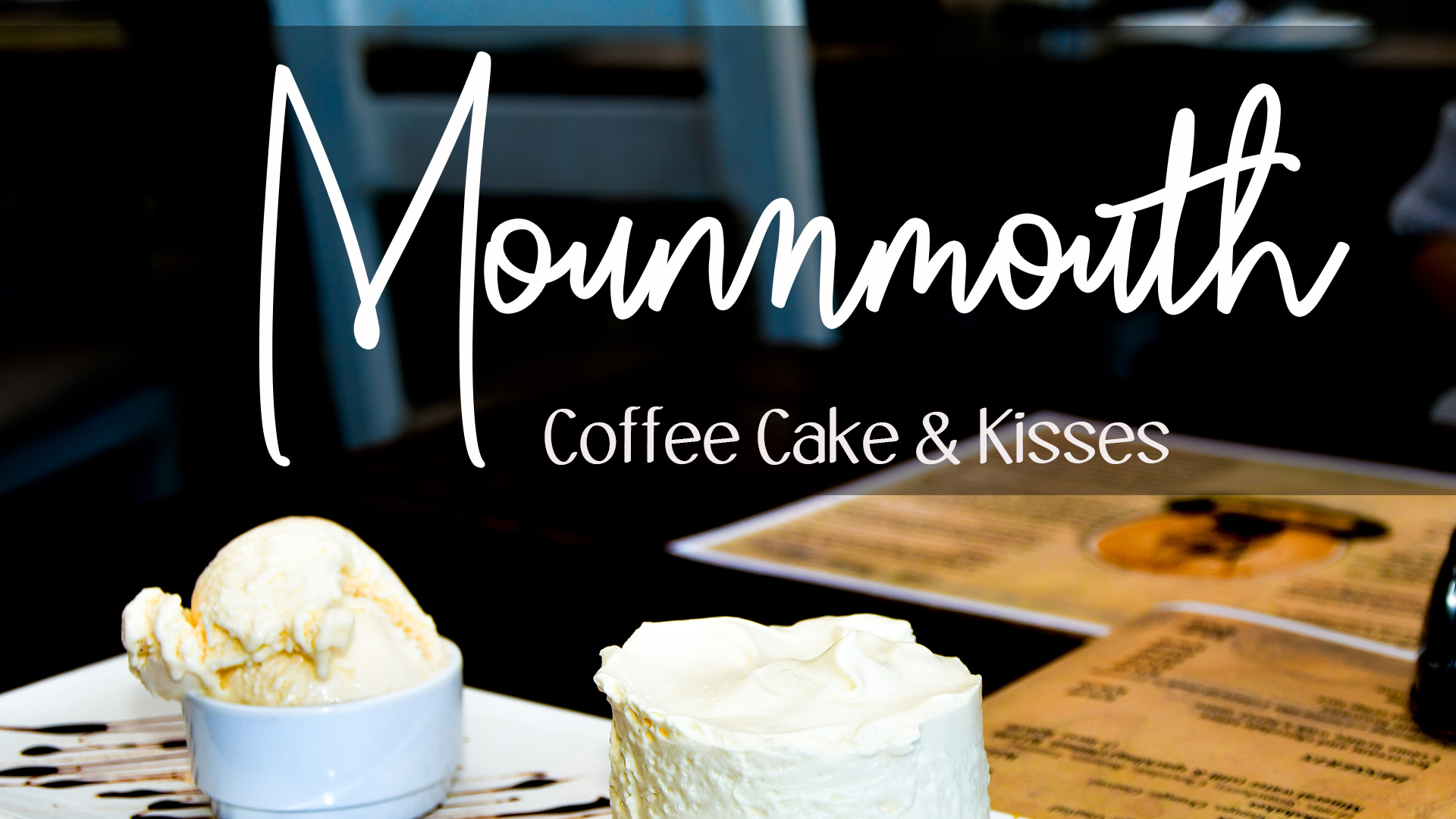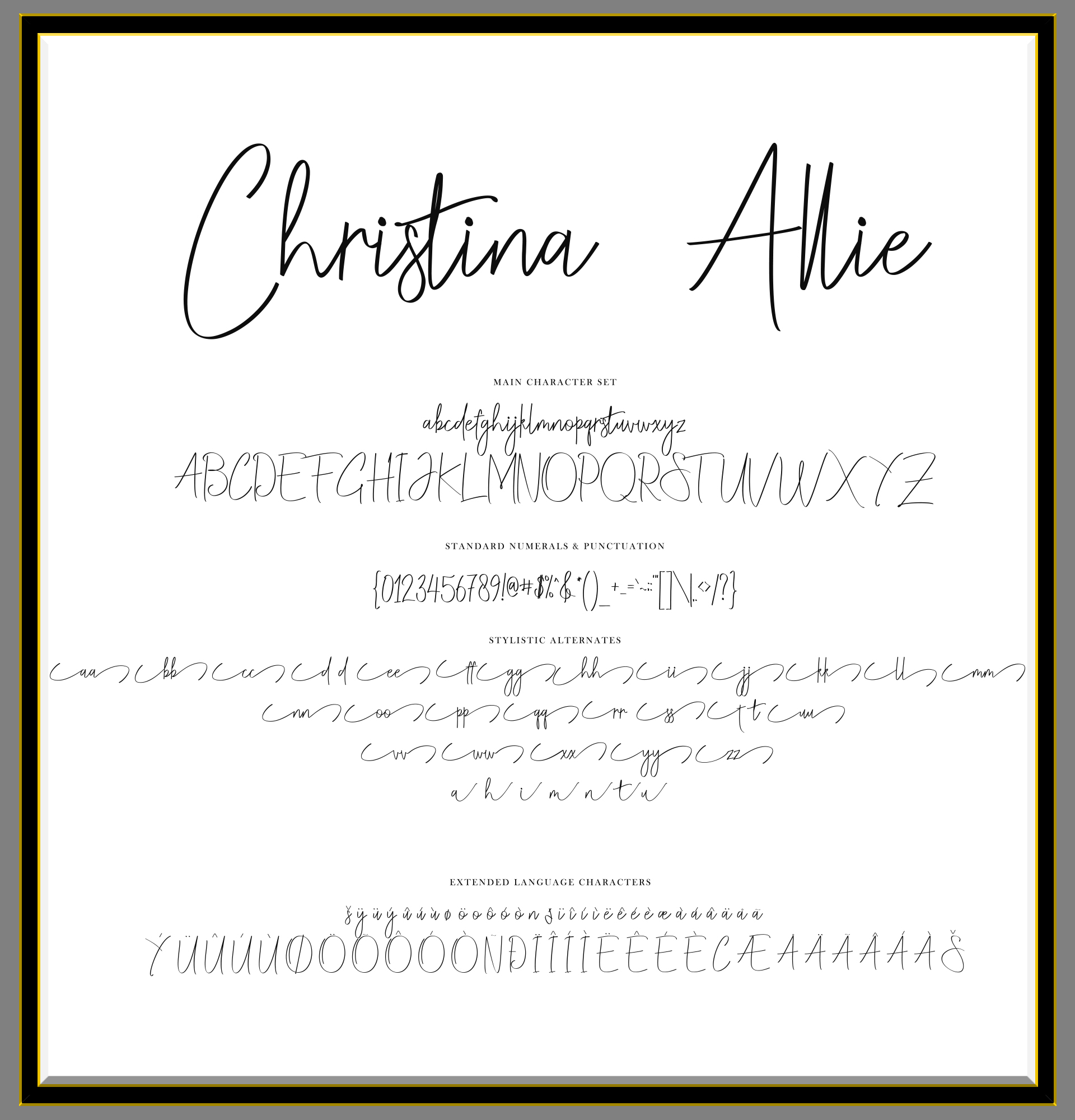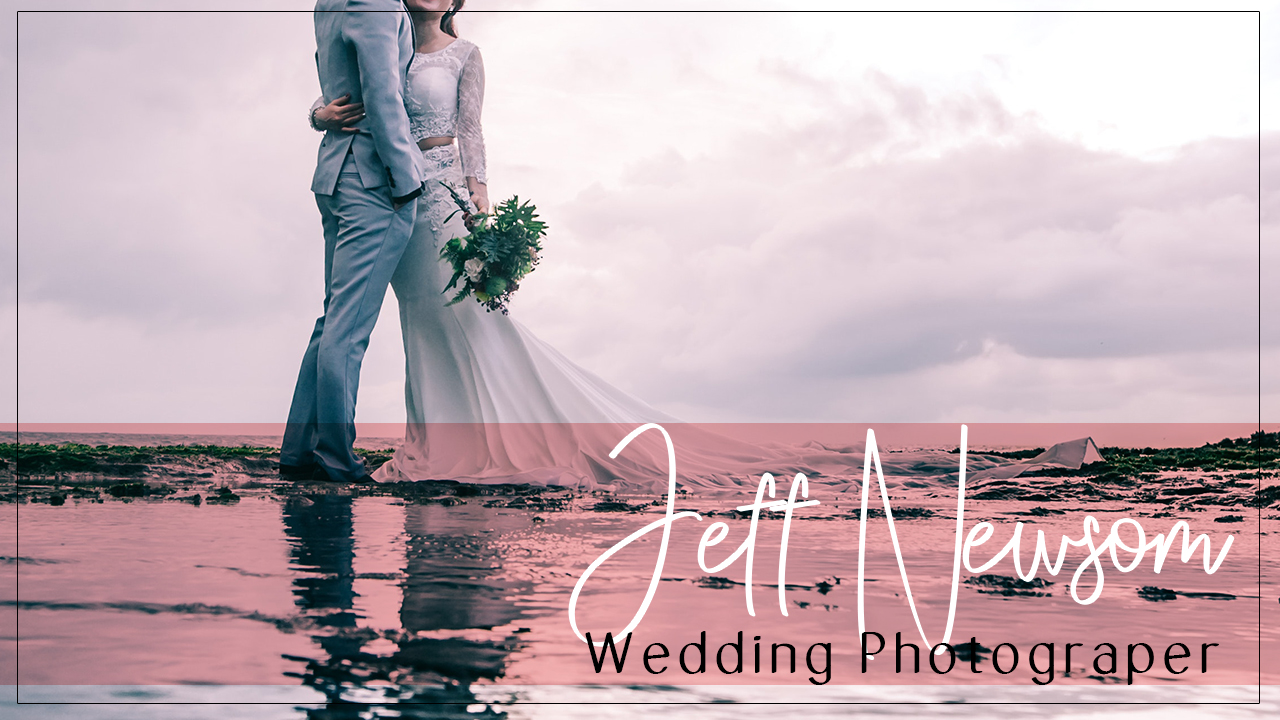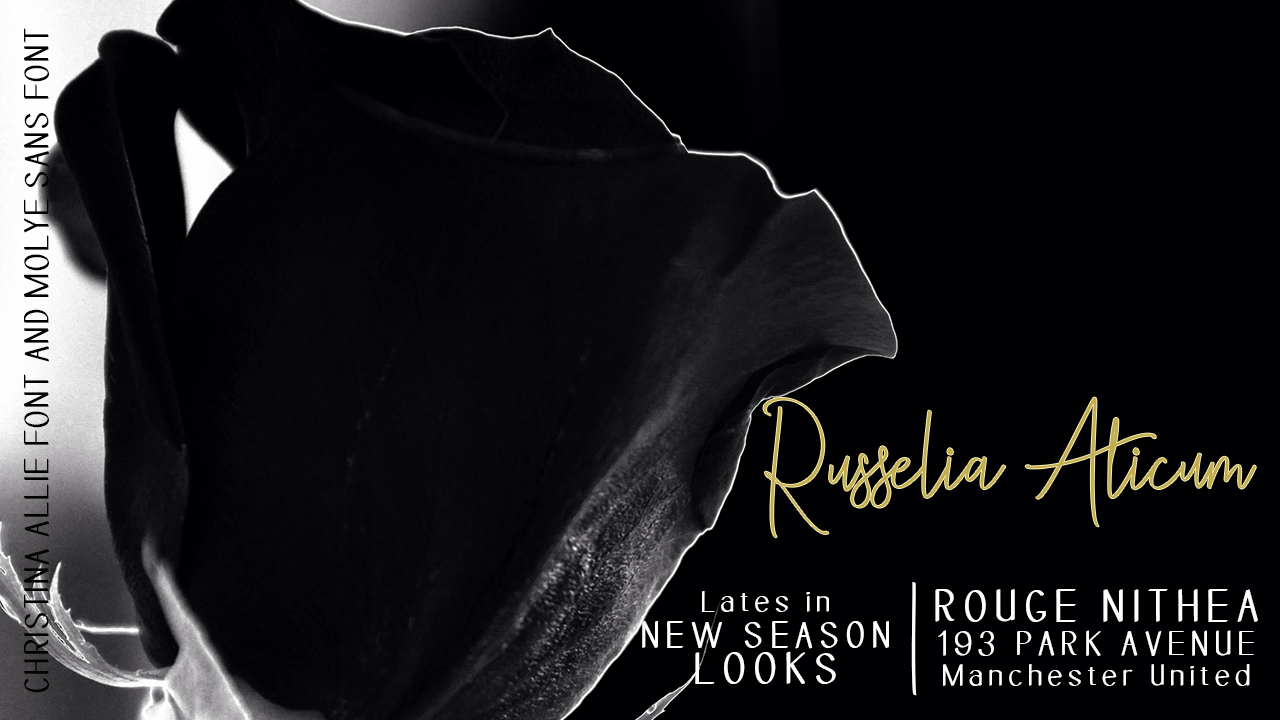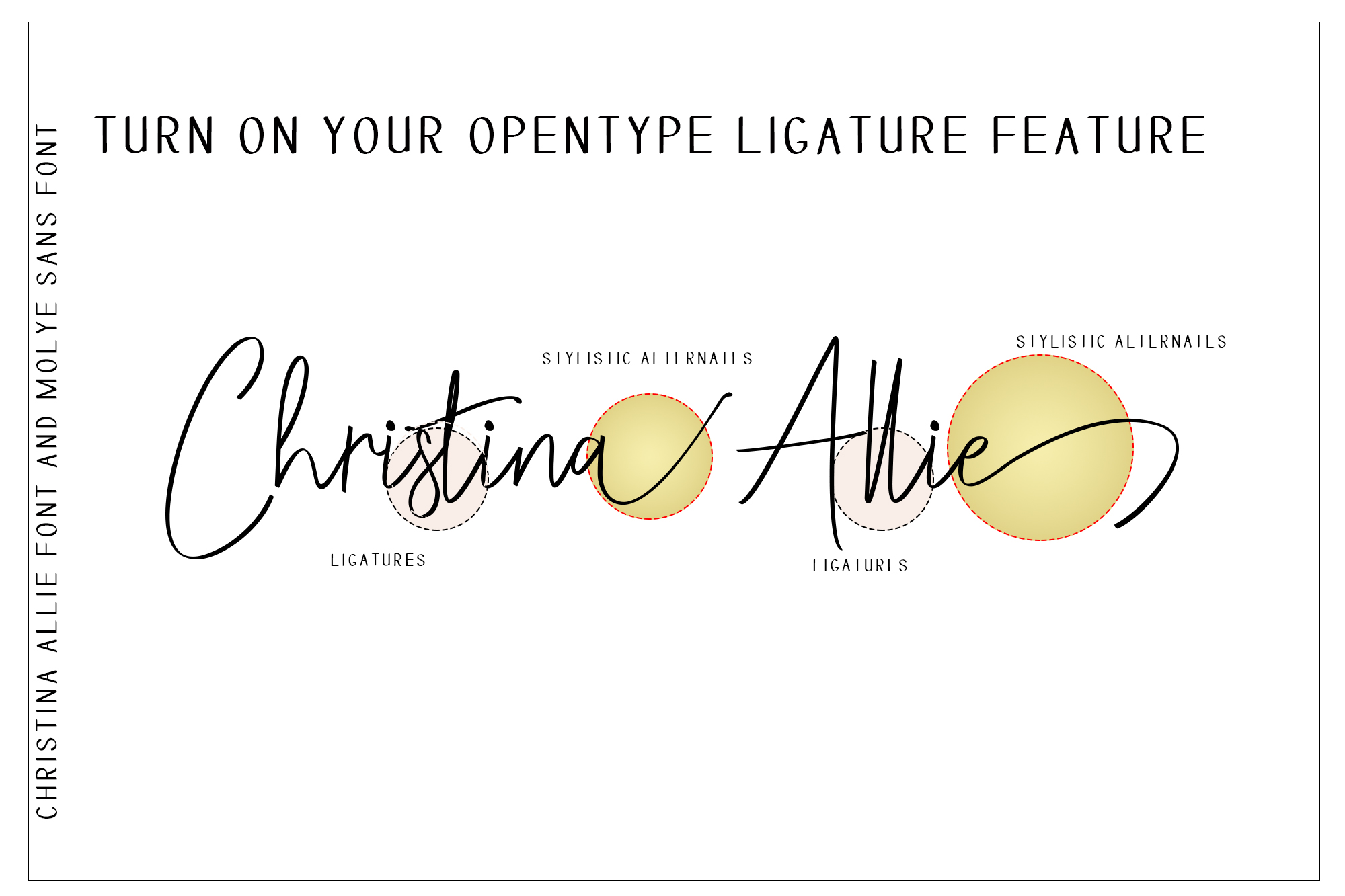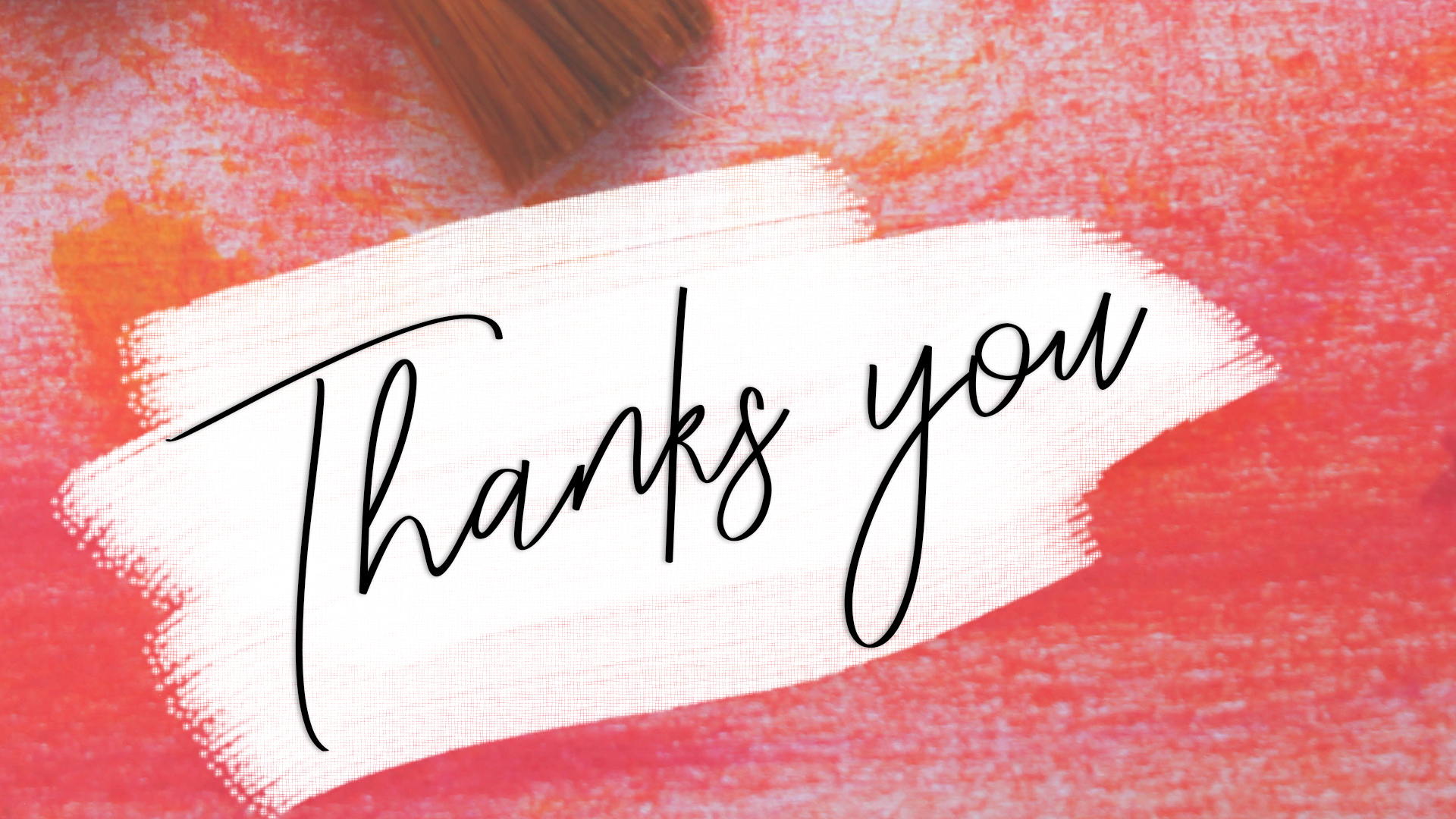
Introduction to Christina Allie Font
Christina Allie is an elegant handwritten font duo that comes packed with alternates and ligatures.
Key Features of Christina Allie Font